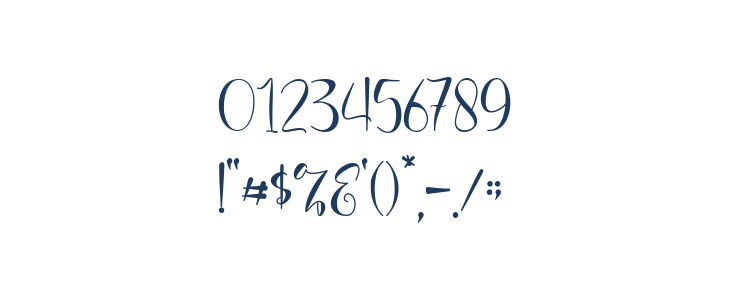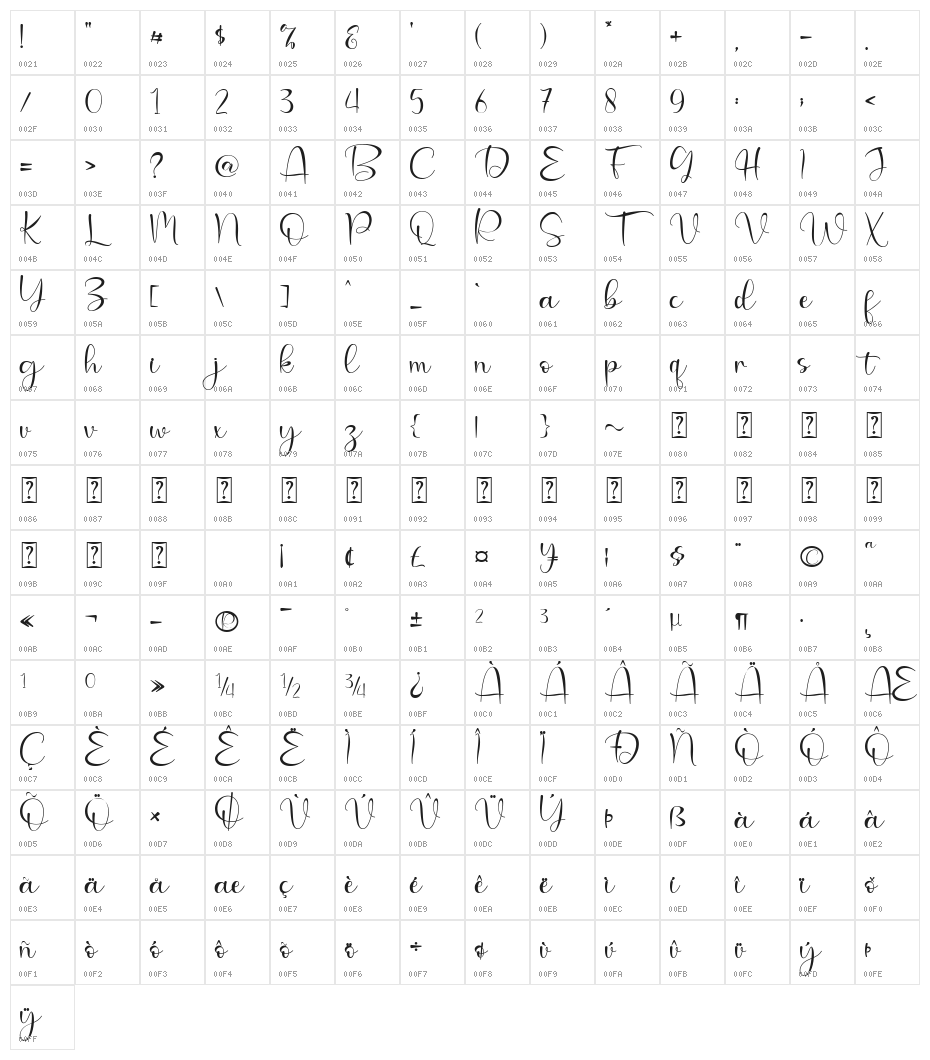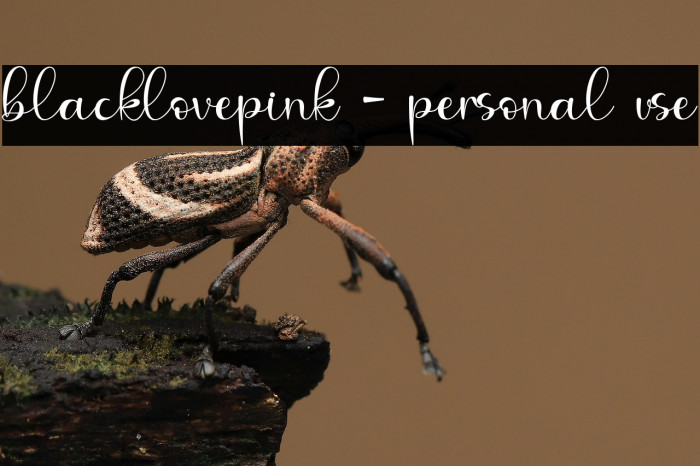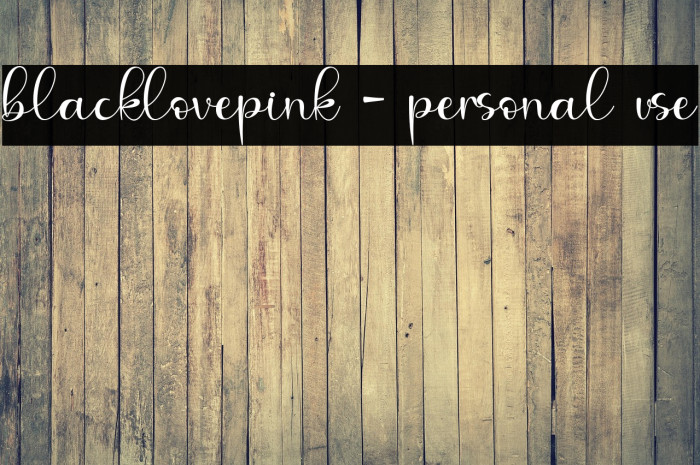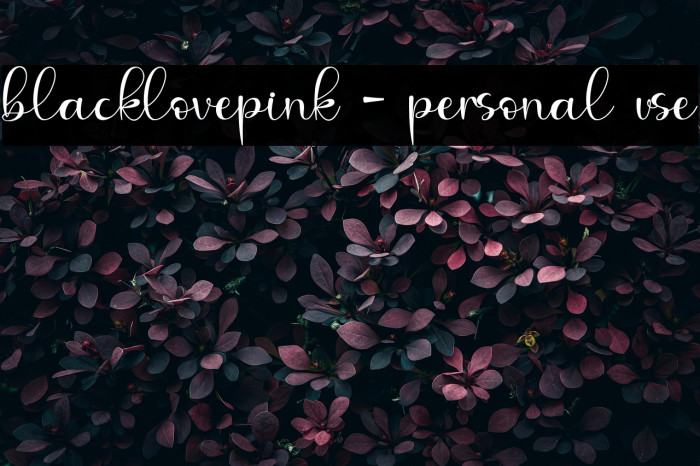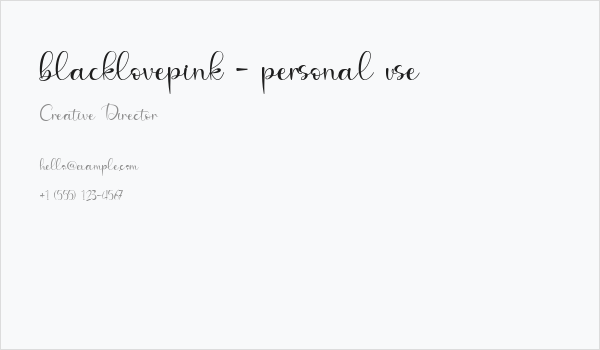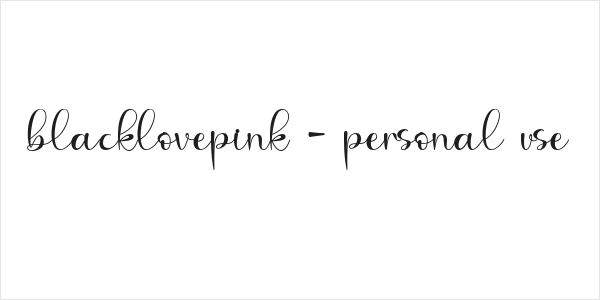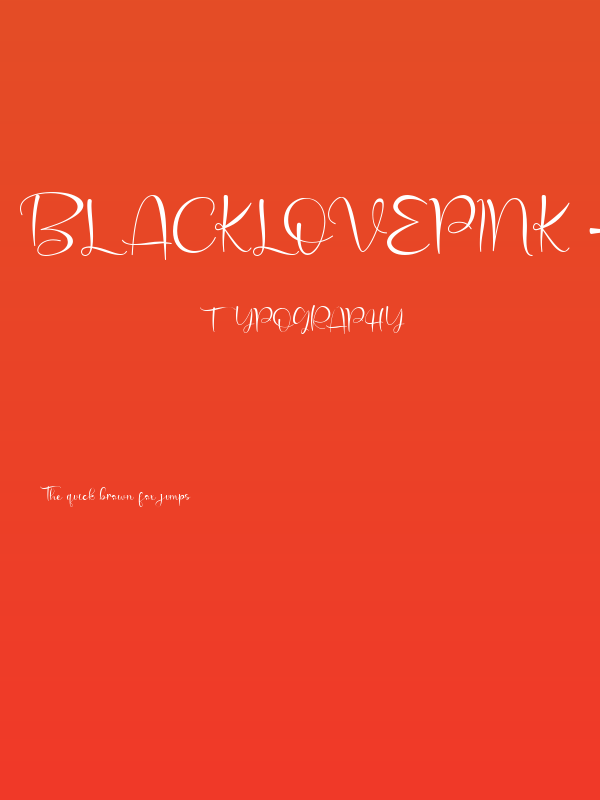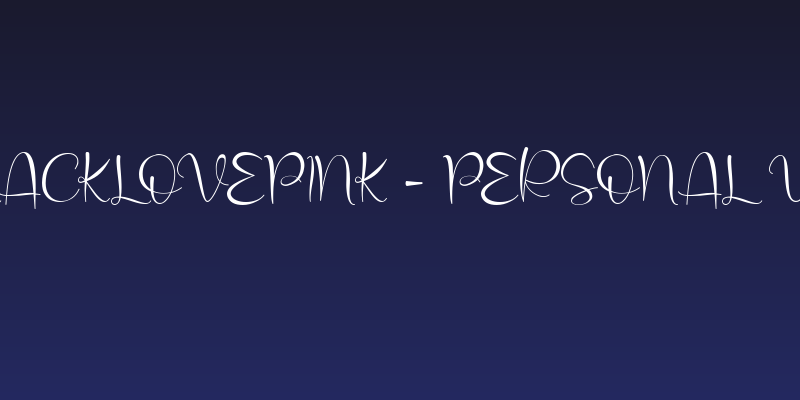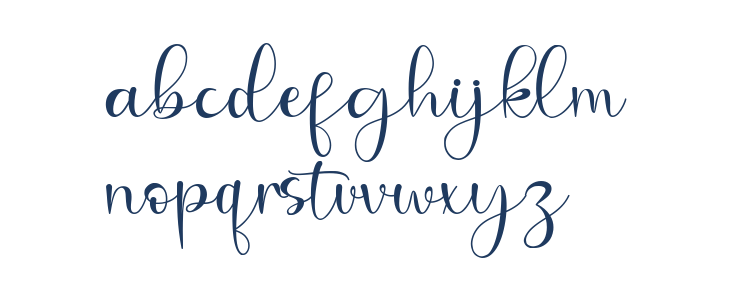
blacklovepink - personal use Font
blacklovepink - personal use Description
This font features a flowing, cursive style with elegant loops and swirls, giving it a handwritten appearance. The uppercase letters are bold and expressive, while the lowercase letters maintain a consistent fluidity. The numerals are distinct yet harmonize well with the overall script style. Special characters are creatively integrated, maintaining the font's artistic flair. The strokes vary in thickness, adding a dynamic contrast that enhances readability while preserving its decorative nature.
| Proposed Projects | Ideal for wedding invitations, greeting cards, branding, and logo design where a personal, artistic touch is desired. |